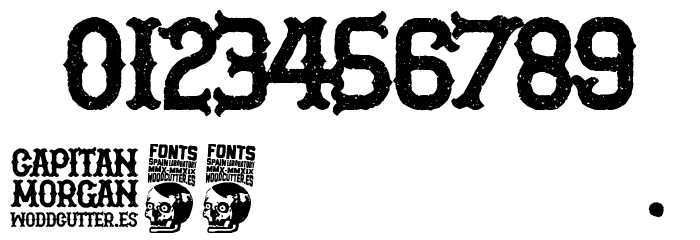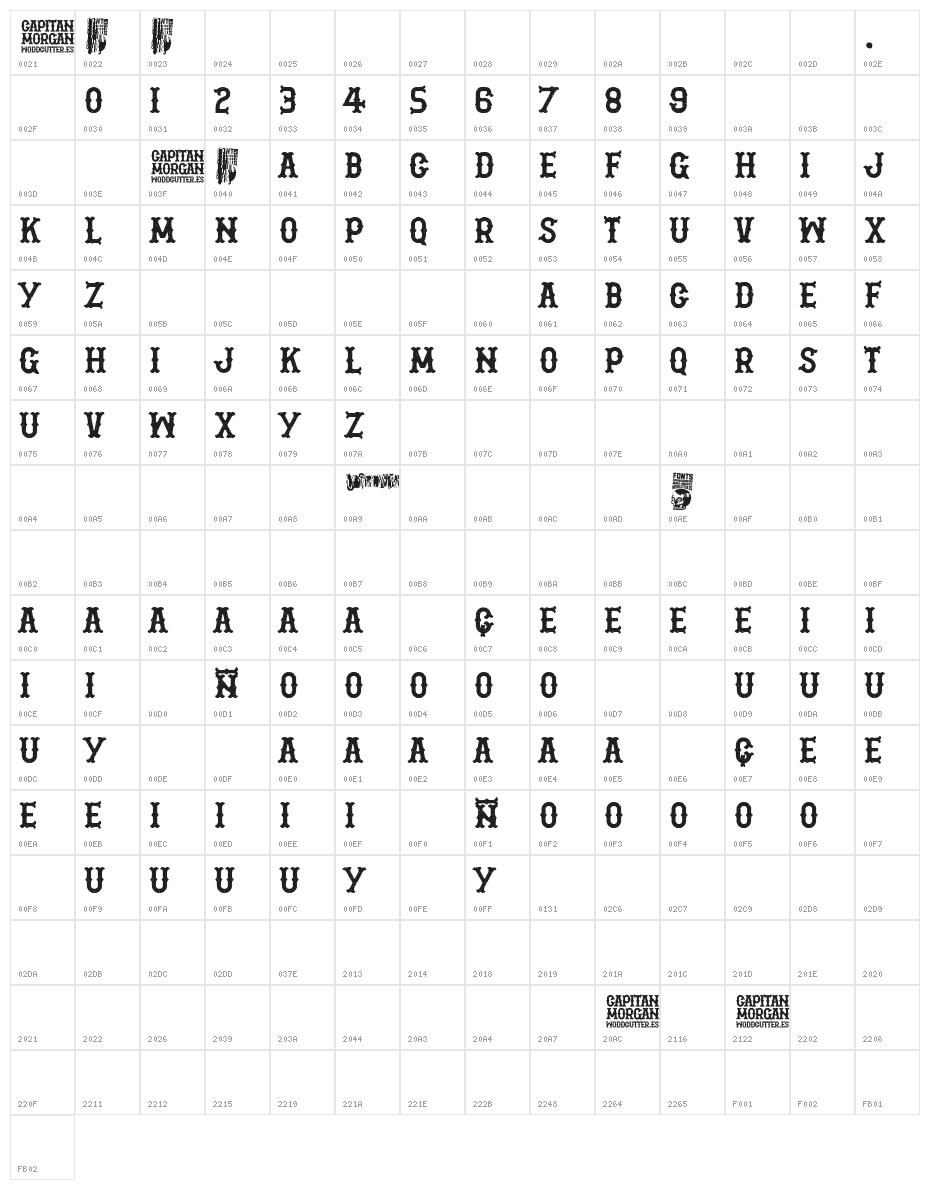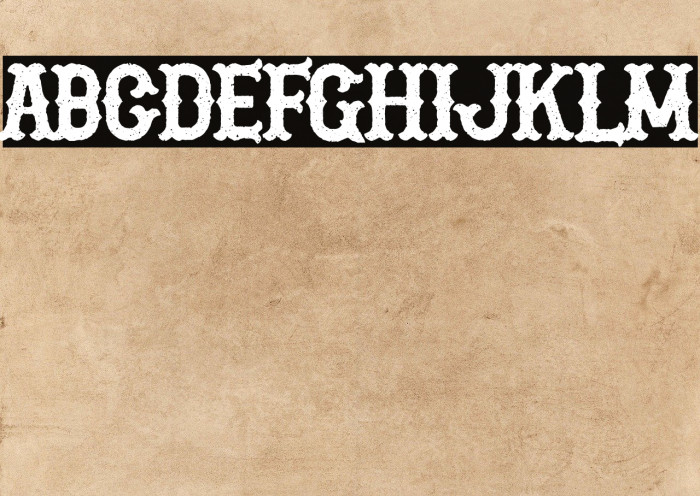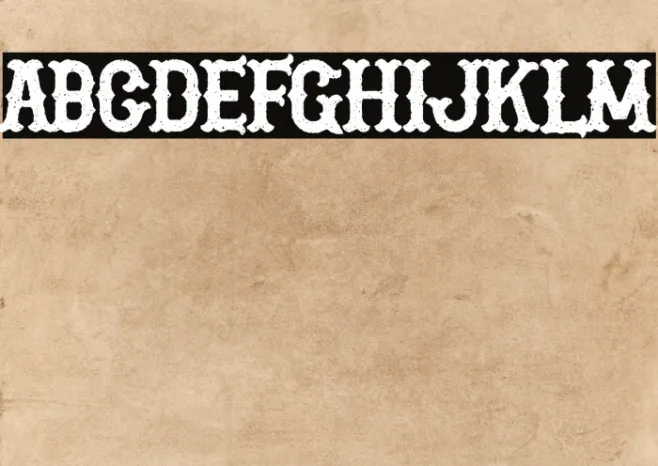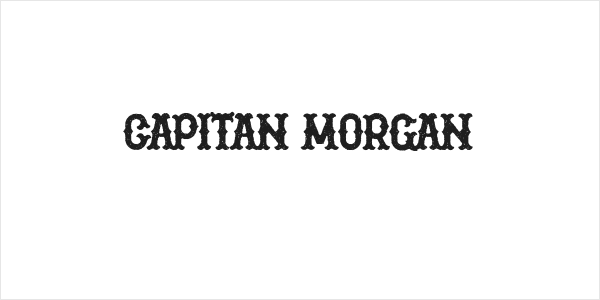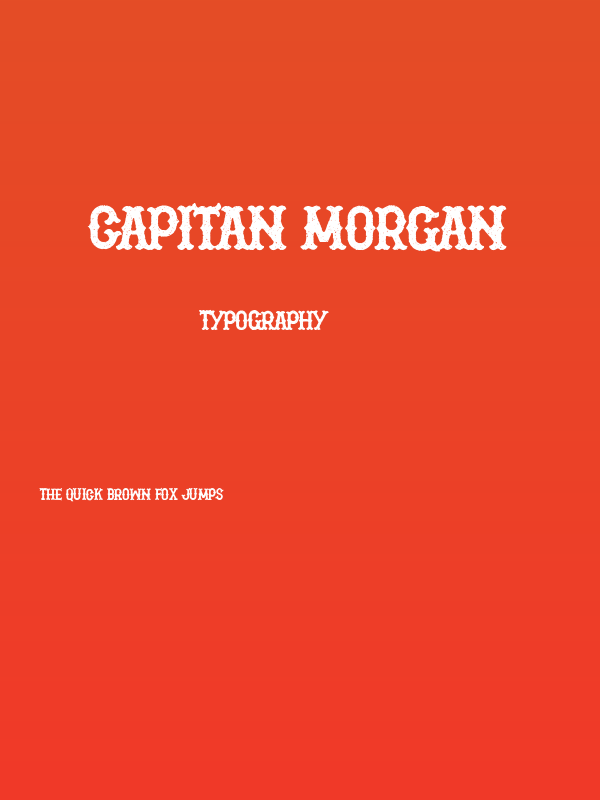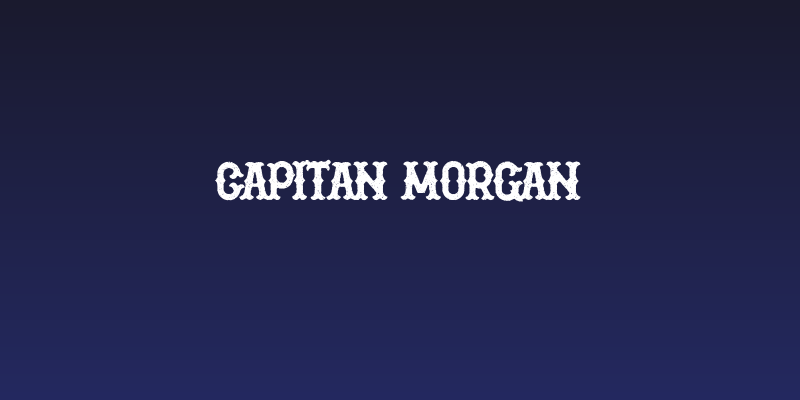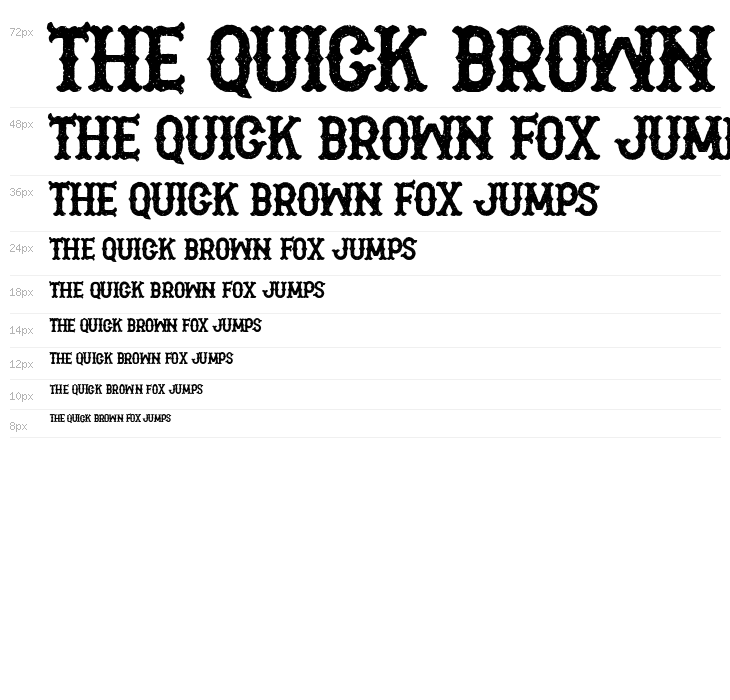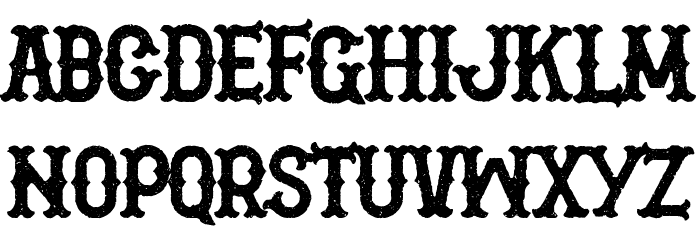
Capitan Morgan Font
Capitan Morgan Description
This font features a bold, decorative style with a vintage pirate theme. The characters are heavily stylized with rough, textured edges that give them a distressed, weathered appearance. Each letter is uniquely crafted with intricate details, reminiscent of old-world typography often associated with maritime adventures. The font's boldness and distinct personality make it stand out, capturing attention with its dramatic flair. It evokes a sense of adventure and nostalgia, perfect for projects that require a touch of historical or nautical charm.
| Proposed Projects | Ideal for themed event posters, pirate-themed branding, historical reenactment materials, or adventure book covers. |